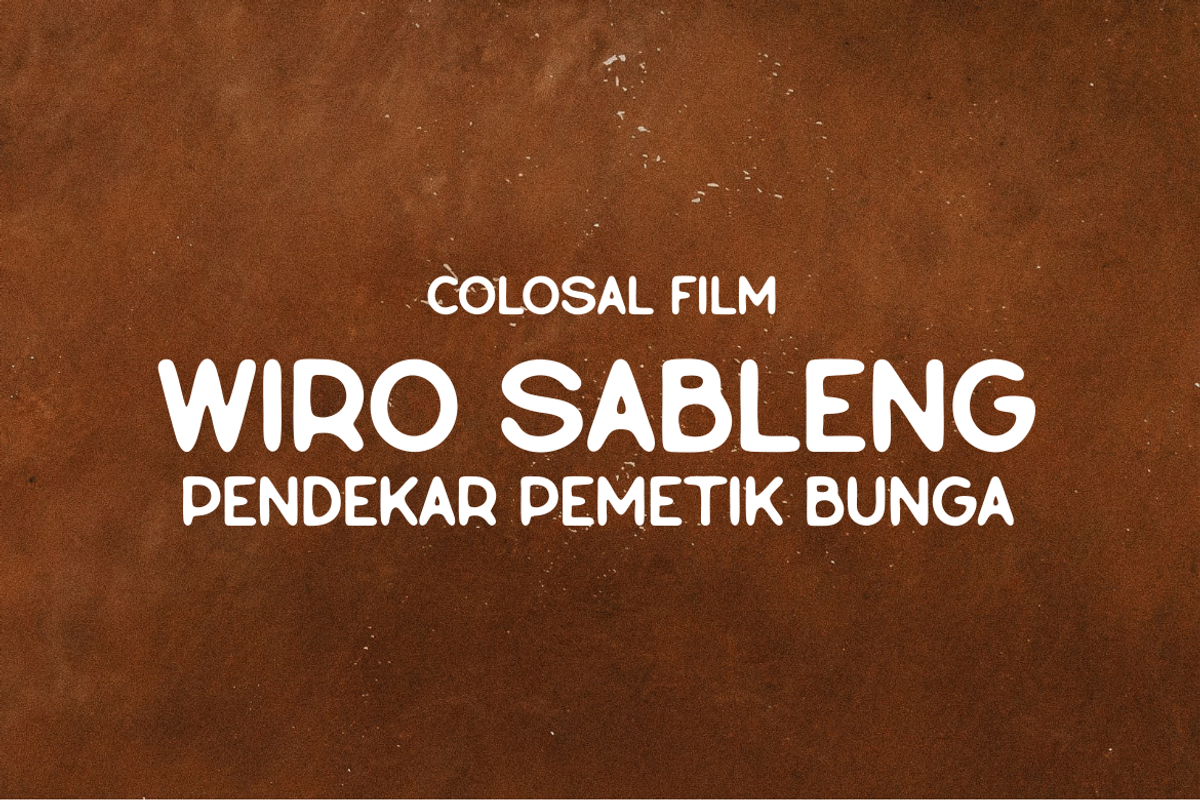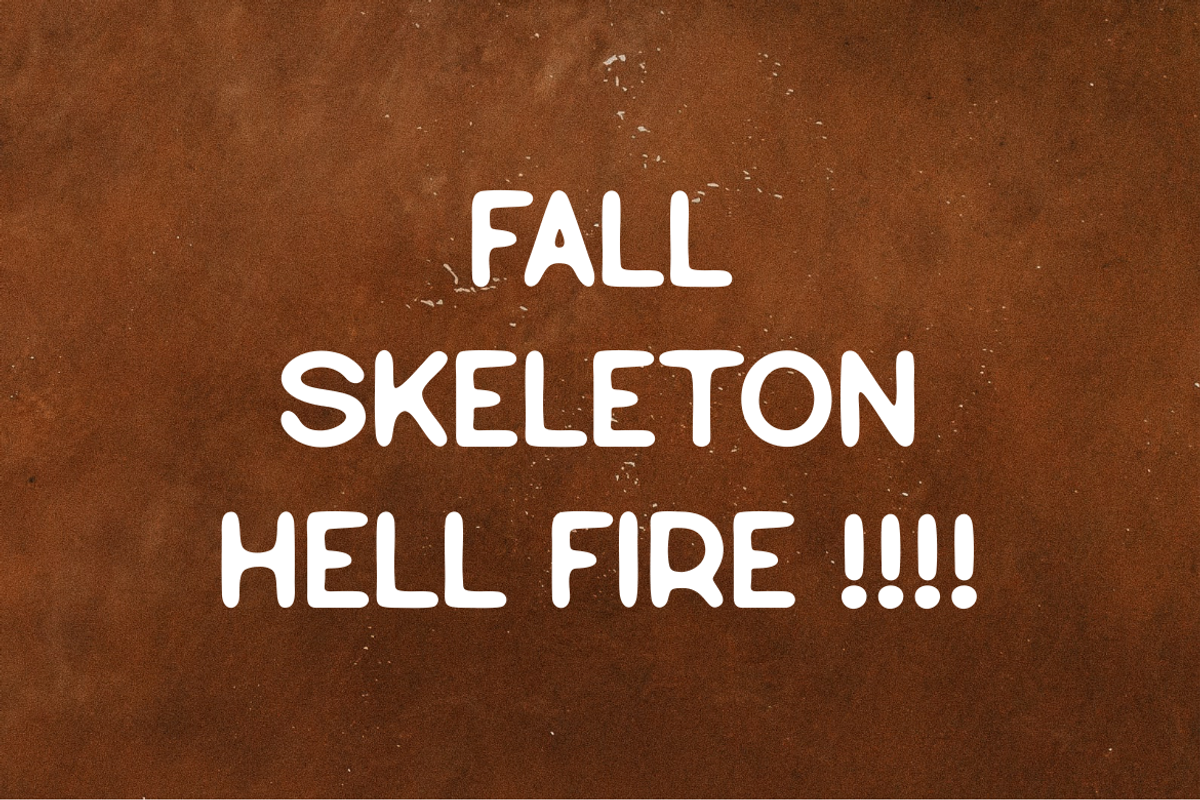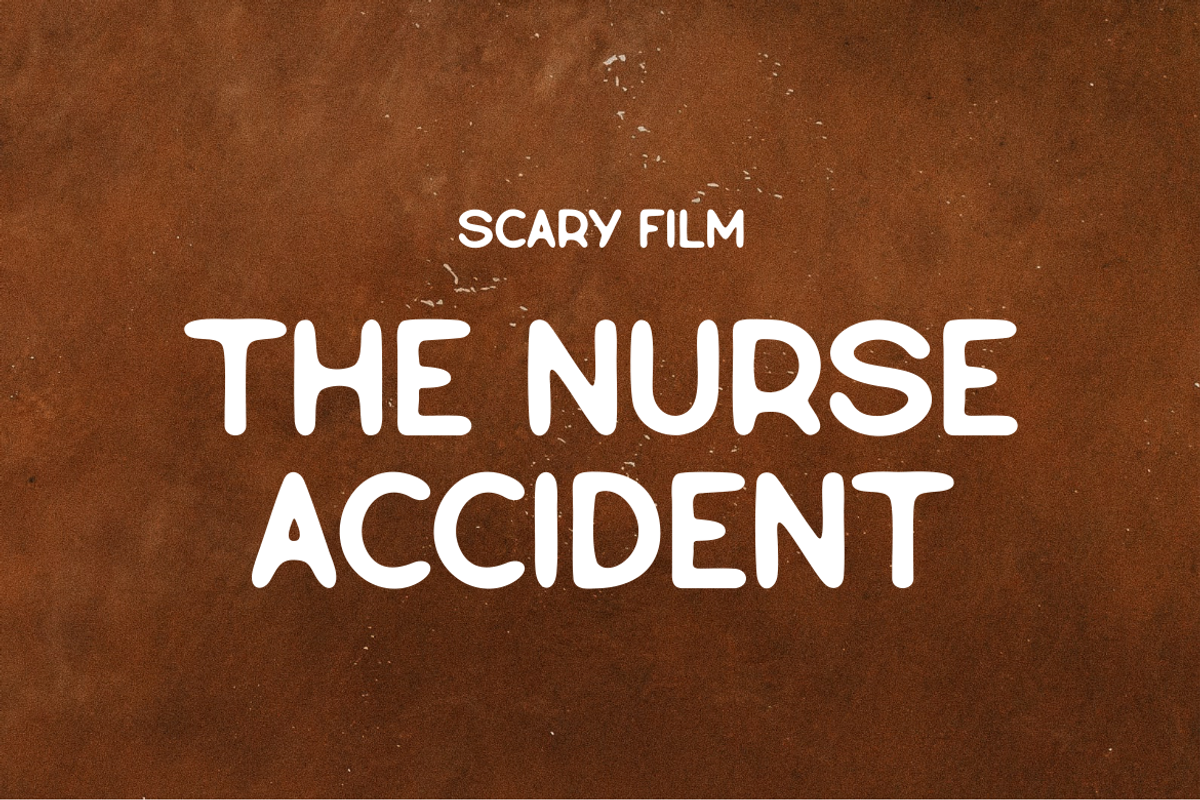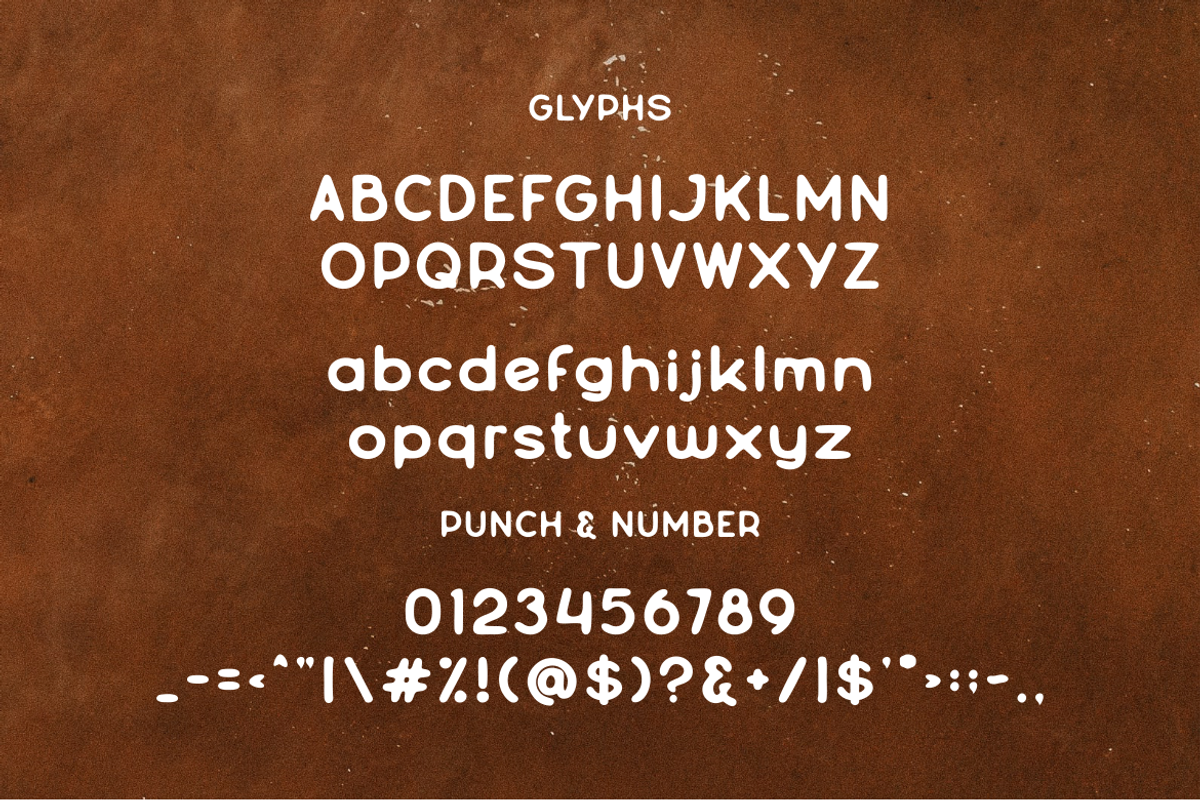
Raympeace Destroy Font Modelling
Experience the epitome of inventive typography with the "Raympeace" font. This extraordinary typeface breaks conventional boundaries, offering a destroyed modeling style that is unapologetically daring and unique. Supported by a bold edition and robust character design, "Raympeace" ensures your content makes a statement. Defy the mundane, harness the power of raw, unmatched creativity with this exceptional font.